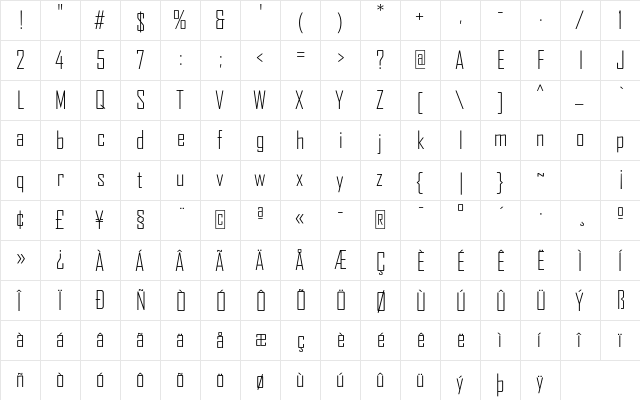
AgencyFB Light Regular Font Preview
AgencyFB Light Regular
AgencyFB Light Regular Font Details
| Foundry | The Font Bureau, Inc. |
Design Context for AgencyFB Light Typeface
AgencyFB Light takes a measured approach to typography — its balanced proportions and neutral character make it a reliable workhorse for both digital and print work. Its slender proportions lend an understated elegance to any composition.
Pro Tip: Pair AgencyFB Light with a font of contrasting weight or personality to build a more expressive typographic hierarchy.